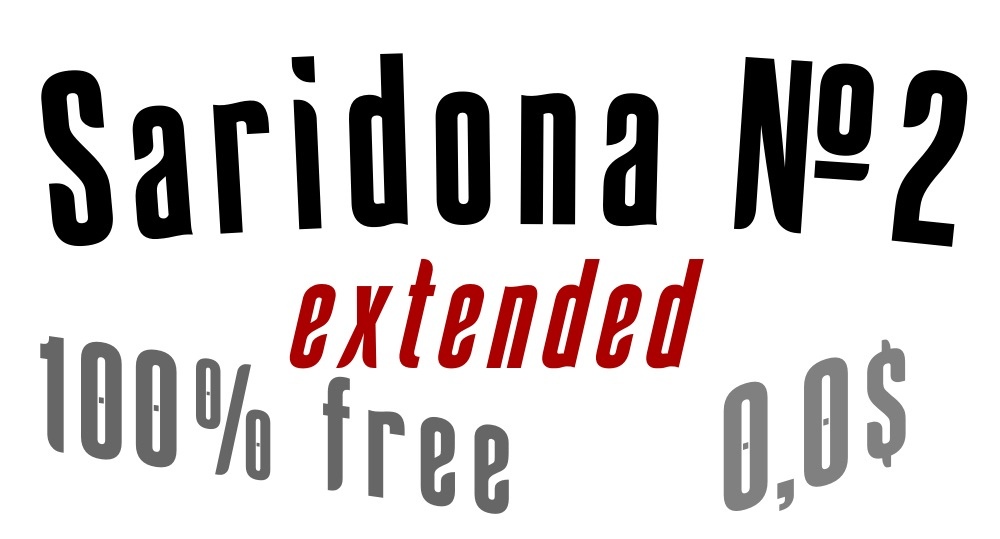
Saridona Font
Saridona Font is perfect for Mediterranean cuisine branding, tropical resort marketing, vacation rentals, sunny destination campaigns, beach clubs, summer fashion, travel agencies, exotic food packaging, wellness retreats, and vibrant lifestyle publications.
What makes Saridona Font exciting is its radiant warmth that captures the essence of Mediterranean sunshine and coastal elegance through beautifully crafted letterforms. This enchanting typeface combines tropical sophistication with inviting accessibility, creating a personality that communicates warmth, relaxation, and authentic Mediterranean charm. The font's sun-kissed character and coastal appeal make it perfect for brands seeking to evoke the magical atmosphere of seaside destinations and the sophisticated allure of Mediterranean lifestyle experiences.
The Saridona Font family includes Regular, Bold, Light, Medium, Italic, Coastal, Tropical, and Sunshine variants. Each weight maintains the font's Mediterranean character while providing comprehensive typographic flexibility for coastal brand identity systems and tropical design applications across diverse hospitality platforms.
Whether you're developing resort brand identities, creating Mediterranean marketing materials, designing coastal restaurant branding, or building tropical tourism campaigns, Saridona Font delivers unmatched coastal appeal and Mediterranean sophistication. Its warm presence makes it perfect for luxury resorts, Mediterranean restaurants, vacation destinations, and lifestyle brands seeking authentic coastal representation.
The font's flowing proportions and sunny details create an inviting reading experience that transports audiences to the sparkling shores of Mediterranean coastlines and relaxing tropical destinations. Each letterform has been carefully crafted to evoke gentle sea breezes and warm sunshine while maintaining excellent readability across hospitality applications.
This versatile typeface excels in vacation environments, offering designers the warmth needed for comprehensive coastal brand communication strategies. The extensive character set includes Mediterranean alternates, tropical ligatures, and coastal symbols for hospitality market positioning and vacation brand storytelling.
Embrace the power of sunny design that celebrates Mediterranean culture and sophisticated coastal living.